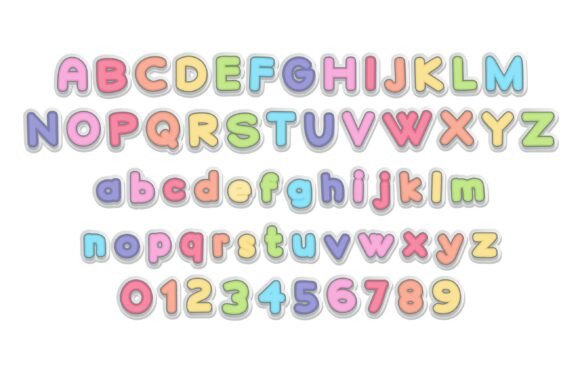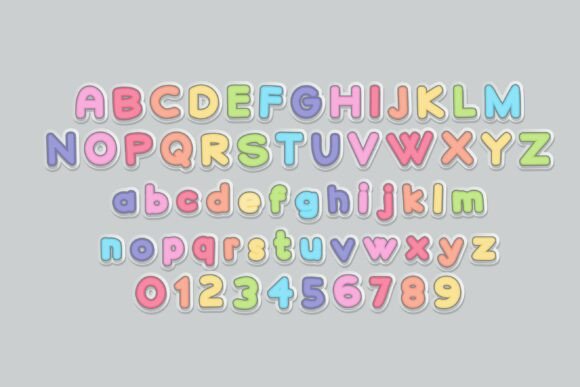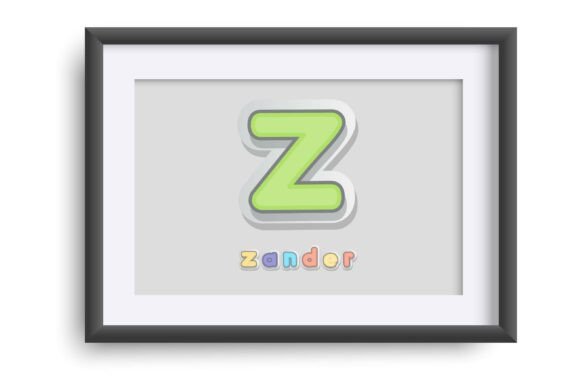
Introduction to Pastel Puffs Font
As a designer, there’s nothing quite like the thrill of bringing a creative project to life. It’s that moment when you finally land on the perfect font – the one that elevates your design from good to great. For me, that moment came when I discovered the Pastel Puffs Font. Its ultra-chunky, rounded letterforms and creamy pastel shades transported me back to a time of innocence and wonder.
With its unique, cloud-like white and grey sticker outline, the Pastel Puffs Font adds a touch of magic to any design. Whether you’re creating packaging for children’s toys or branding infant apparel, this font is sure to captivate your audience and leave a lasting impression. And the best part? It’s a high-quality design resource that’s available for free download, complete with a transparent background that’s perfect for layering.
Key Features of Pastel Puffs Font
- High-quality, free download font ideal for creative projects, including digital art, graphic design, and more.
- Unique, pastel-colored font with a puffy texture, offering a distinctive design resource for designers and artists.
- Transparent background option allows for easy layering and customization in creative projects.
- Perfect for adding a touch of whimsy and playfulness to designs, making it a great design resource for creative projects.
Honest Review: Pastel Puffs Font
I recently stumbled upon the Pastel Puffs Font and I must say it’s been a delightful addition to my design resources. The font is perfect for those creative projects that require a touch of whimsy and playfulness.
Here are some of the things that work well with the Pastel Puffs Font:
- ✨ High-quality design: The font is crisp, clear, and well-designed, making it perfect for print and digital applications.
- ✨ Transparent background: This feature allows for seamless integration with other design elements, making it a great asset for designers.
- ⚠️ Limited character set: The font only includes a limited set of characters, which may not be ideal for designers who need a full range of characters.
- ⚠️ Not suitable for large text: Due to its playful design, the font may not be suitable for large text sizes, as it may become difficult to read.
Overall, I’m impressed with the Pastel Puffs Font and would definitely recommend it to designers looking for a fun and creative design resource.
Tips for Getting the Most Out of Pastel Puffs Font
To get the most out of the Pastel Puffs Font, consider the following tips:
- Use the font on a transparent background to create a beautiful and delicate design.
- Combine the font with other high-quality design resources to create a unique and eye-catching design.
- Experiment with different font sizes and styles to create a visually appealing design.
The Pastel Puffs Font is ideal for a variety of creative projects, including:
- Wedding invitations and stationery.
- Baby shower invitations and decorations.
- Food and beverage branding.
- Home decor and wallpaper design.